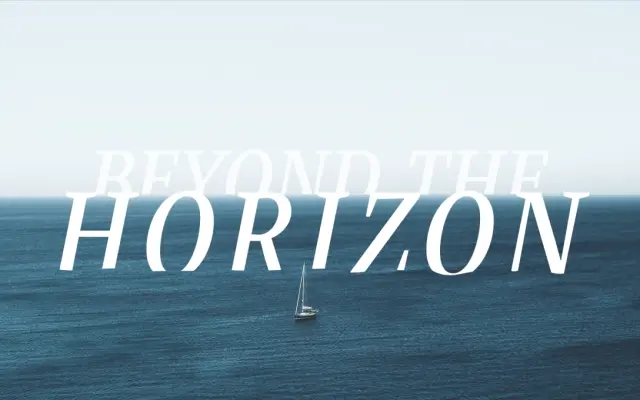
Singel
Fontfabric · Jacklina Jekova, Nikolay Petroussenko · 2018
A neoclassical serif with semi-condensed proportions, designed for upscale branding and editorial work with a full set of small capitals and true italics.
Designed by Jacklina Jekova and Nikolay Petroussenko for Fontfabric, Singel draws on rationalist modulated strokes and crisp serifs to produce a restrained, elegant roman suited to high-fashion branding and luxury packaging. The family spans five weights from Light to Bold, each with a true italic, giving ten styles in total. OpenType features include small capitals, tabular numerals, fractions and case-sensitive forms, with broad multilingual Latin support.
Described by the foundry as neoclassical, with semi-condensed proportions, rationalist modulated stroke and crisp serifs placing it firmly in the classical roman tradition with a contemporary refinement.